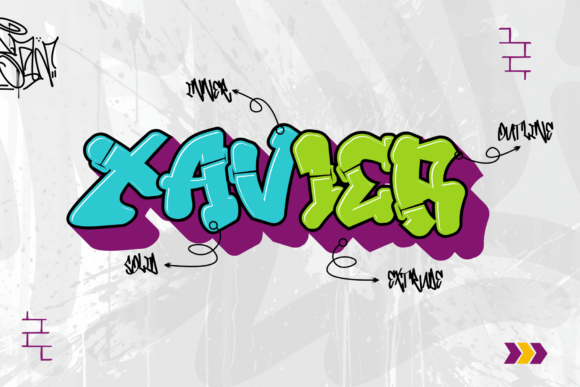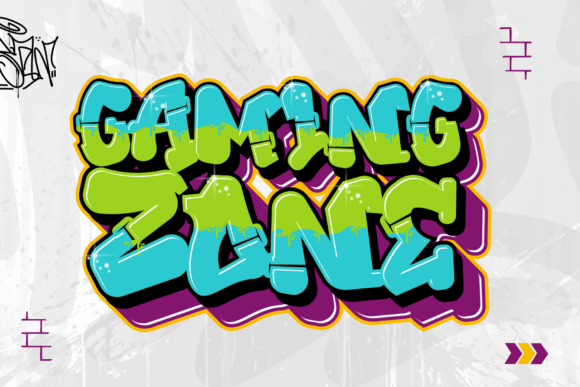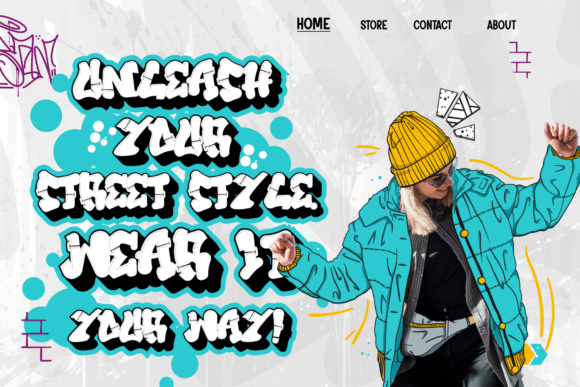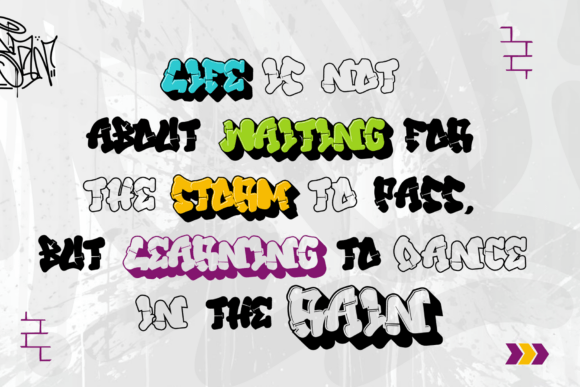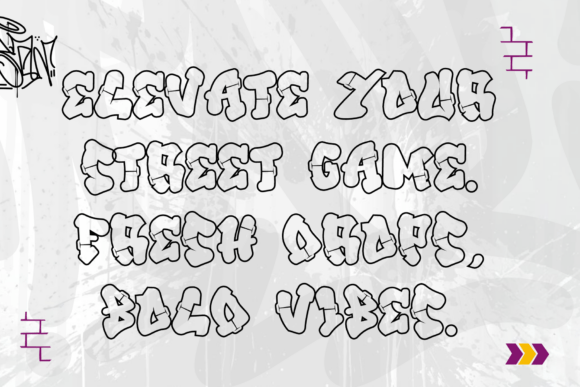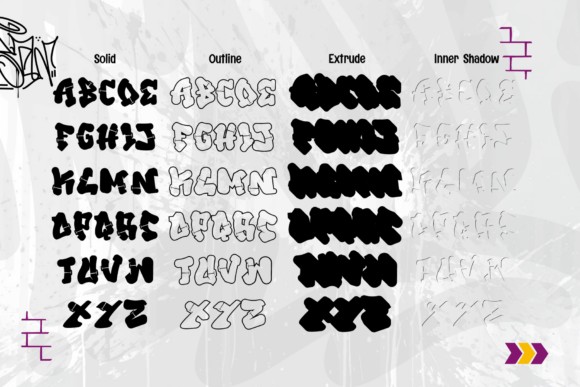
Unleash Your Design Potential with Apex Bound Font
Welcome to the undeniable charisma of Apex Bound, an incredibly flexible and energetic layered graffiti font that truly brings your design to life. This 3D font is unique and consists of manifold styles that pave the way for a broad spectrum of visual aesthetics.
A Font Like No Other
Apex Bound is not just a font, it’s an experience. Its strong elements include a solid style that provides a bold, brimming charisma to the letters, acting as the solid foundation layer that draws attention. The neat outline style imparts a crisp edge to each character, breathing life into them and making them pop from the canvas.
The Power of Layering
To amplify the 3D characteristic of Apex Bound, an inner shadow style is incorporated, injecting shadows within the letterforms. This ingenious addition infuses depth and intricate visual charm into the font. Completing the impressive palette of styles, the extrude style extends an outstanding volumetric effect. The letters don’t just lie flat but seem to jut out, enhancing their structure and three-dimensional visual vibe.
With these combined styles, the creative possibilities are endless. Designers and crafters can experiment with different layer combinations to achieve a wide range of visual effects. Whether you’re looking to create a bold statement or a subtle design, Apex Bound has got you covered.
Key Features of Apex Bound
- Solid Style: Provides a bold, brimming charisma to the letters, acting as the solid foundation layer that draws attention.
- Outline Style: Imparts a crisp edge to each character, breathing life into them and making them pop from the canvas.
- Inner Shadow Style: Injects shadows within the letterforms, infusing depth and intricate visual charm into the font.
- Extrude Style: Extends an outstanding volumetric effect, making the letters seem to jut out and enhancing their structure and three-dimensional visual vibe.
Why Choose Apex Bound?
Apex Bound is the perfect choice for designers and crafters looking to add a touch of sophistication and elegance to their designs. Its unique and flexible design makes it suitable for a wide range of projects, from branding and advertising to packaging and digital media.
Tips and Tricks for Using Apex Bound
Here are some tips and tricks for getting the most out of Apex Bound:
- Experiment with different layer combinations: Try out different layer combinations to achieve unique visual effects.
- Play with colors and textures: Experiment with different colors and textures to add depth and interest to your design.
- Use Apex Bound for headlines and titles: Apex Bound is perfect for headlines and titles, where its bold and eye-catching design can really shine.
In conclusion, Apex Bound is a game-changing font that is sure to take your designs to the next level. Its unique and flexible design, combined with its wide range of styles and effects, make it the perfect choice for designers and crafters looking to add a touch of sophistication and elegance to their designs.
With Apex Bound, the possibilities are endless. So why wait? Get ready to elevate your designs and take your creativity to new heights with this incredible font.